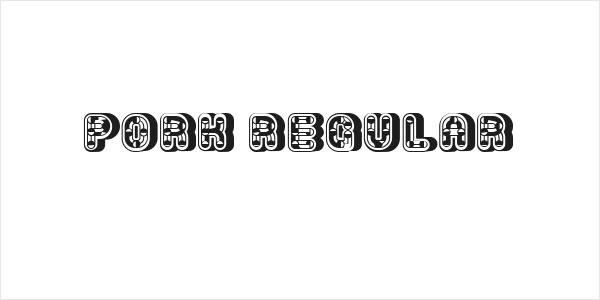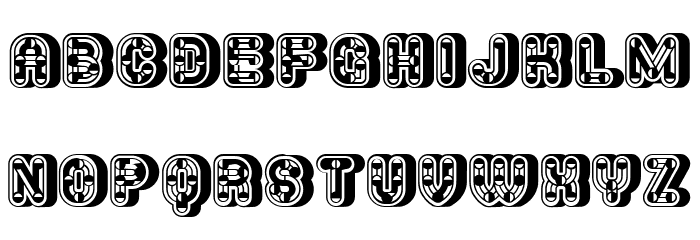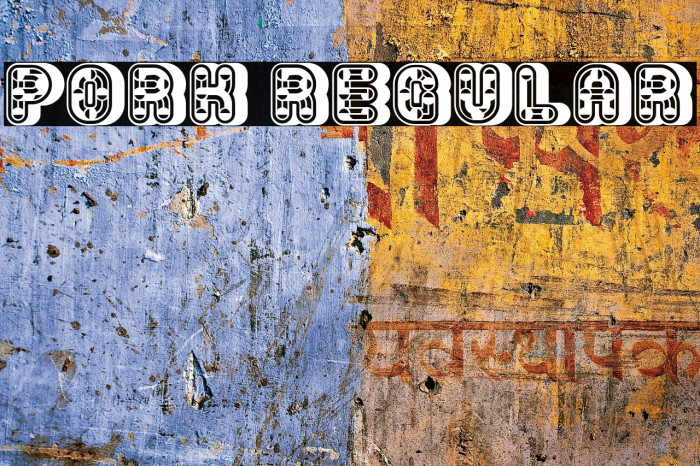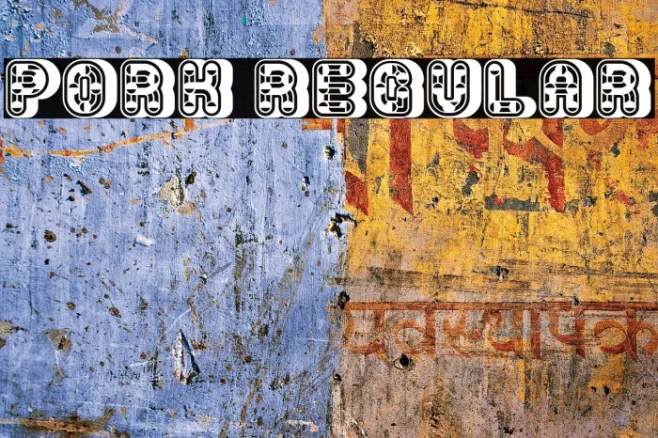
Pork Regular Font
Pork Regular Description
This font features a bold, playful style with a unique, layered design that incorporates intricate patterns within each character. The letters are outlined with a thick black border, enhancing their visibility and adding a striking contrast. The interior of each letter is filled with a series of geometric shapes and lines, creating a sense of depth and complexity. This decorative approach gives the font a lively and dynamic appearance, making it ideal for projects that require a fun and engaging visual element. The overall design is consistent across both uppercase and lowercase letters, as well as numbers and special characters, ensuring a cohesive look.
| Proposed Projects | Ideal for children's books, playful branding, posters, and event invitations. |